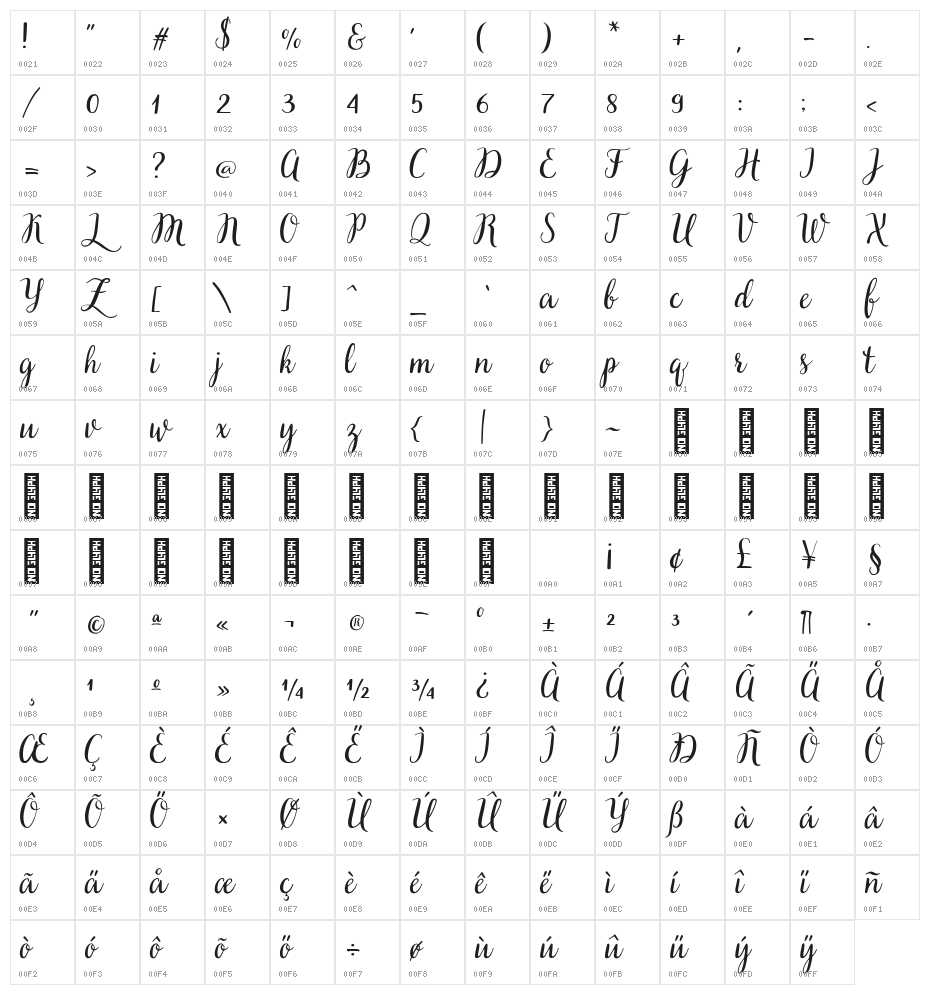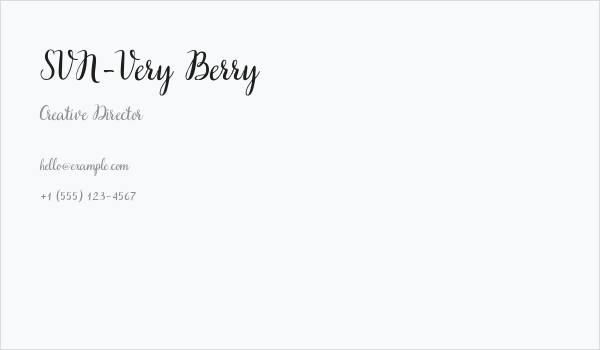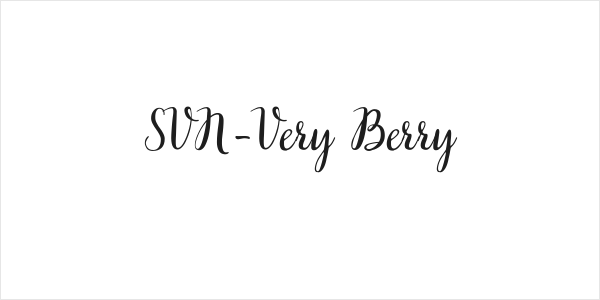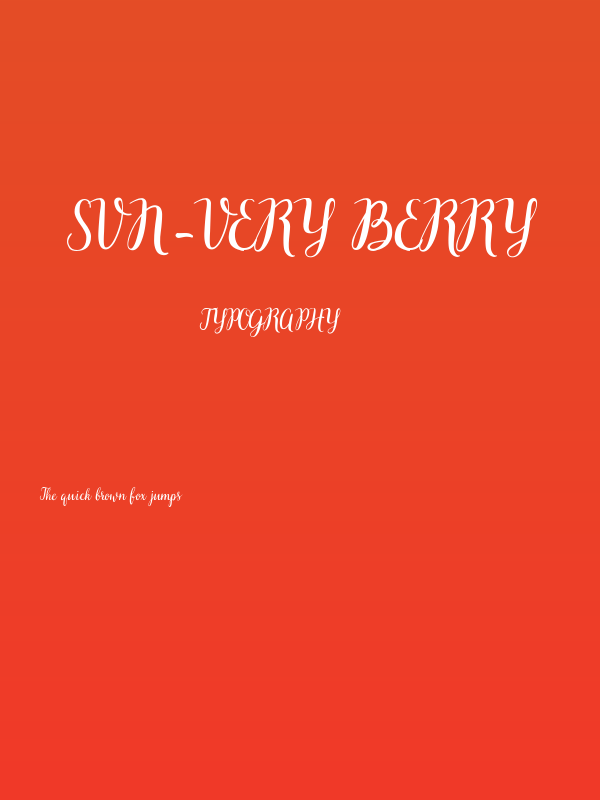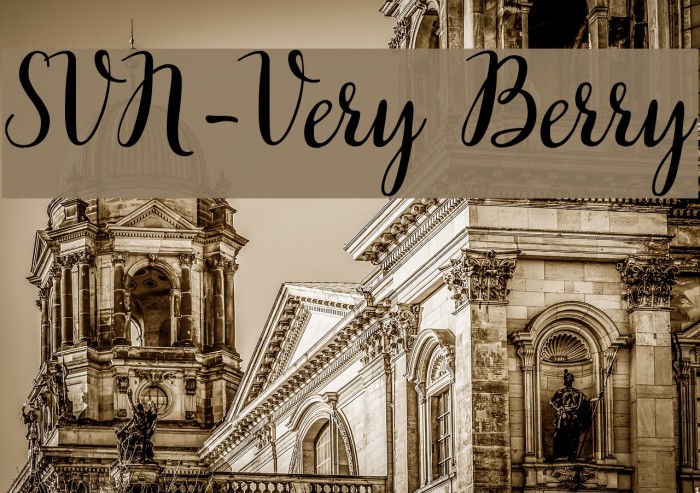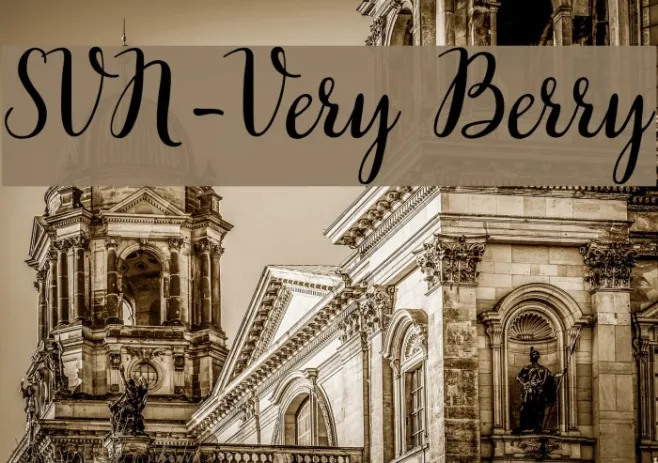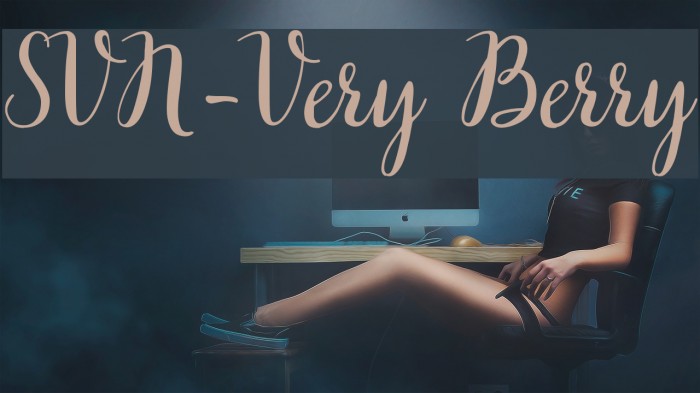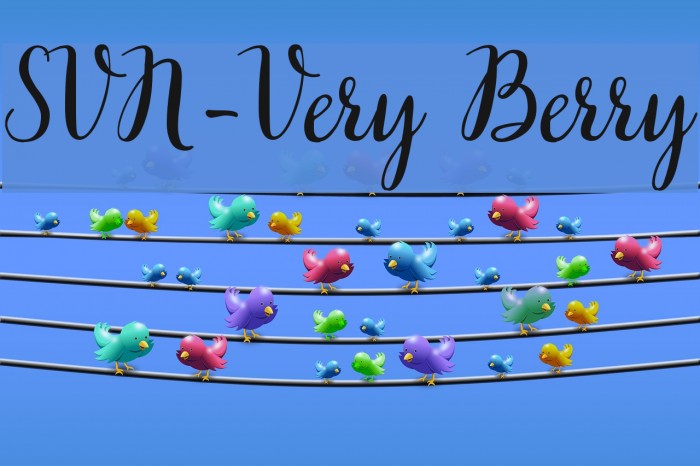
SVN-Very Berry Font
SVN-Very Berry Description
This font exudes a charming and elegant script style, characterized by its flowing, cursive letterforms. The uppercase letters are ornate, with sweeping curves and flourishes that add a touch of sophistication. The lowercase letters maintain a consistent flow, with smooth connections between characters, enhancing readability while retaining a decorative flair. The numerals are styled to match the script's elegance, featuring subtle curves and a balanced design. Special characters are thoughtfully integrated, ensuring they complement the overall aesthetic. This font is perfect for projects that require a personal, handwritten touch.
| Proposed Projects | Ideal for wedding invitations, greeting cards, branding, and elegant packaging designs. |